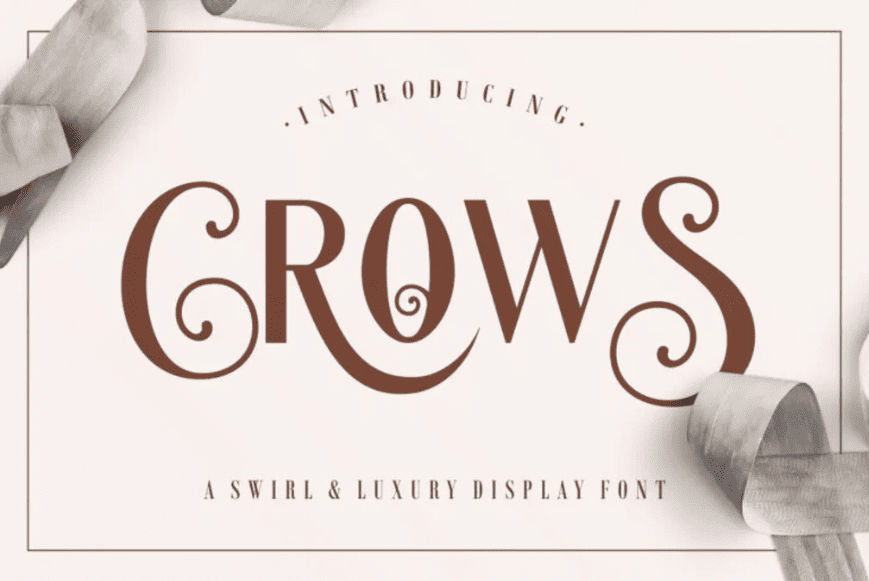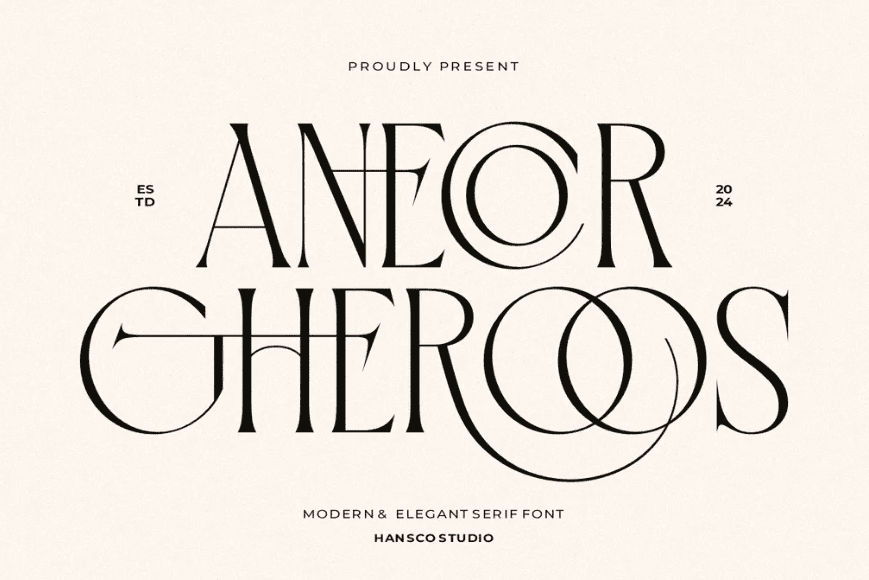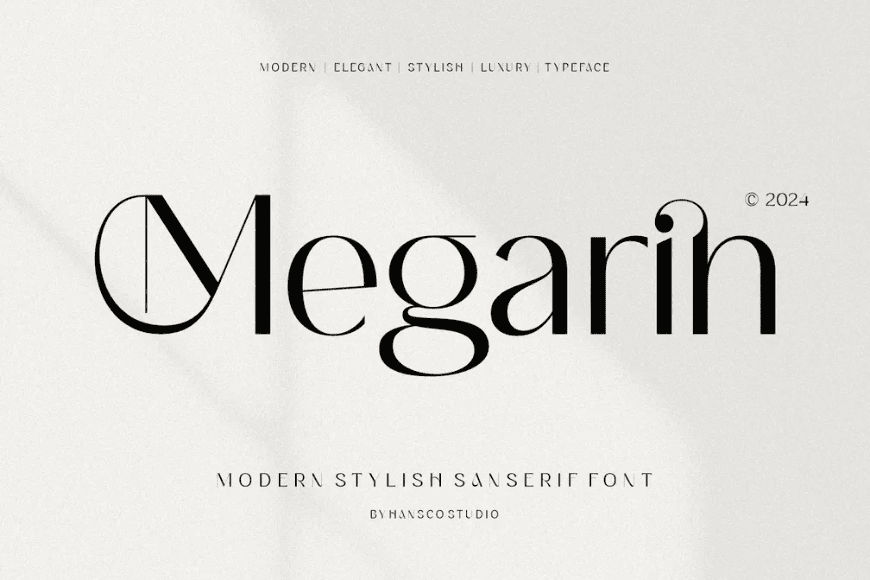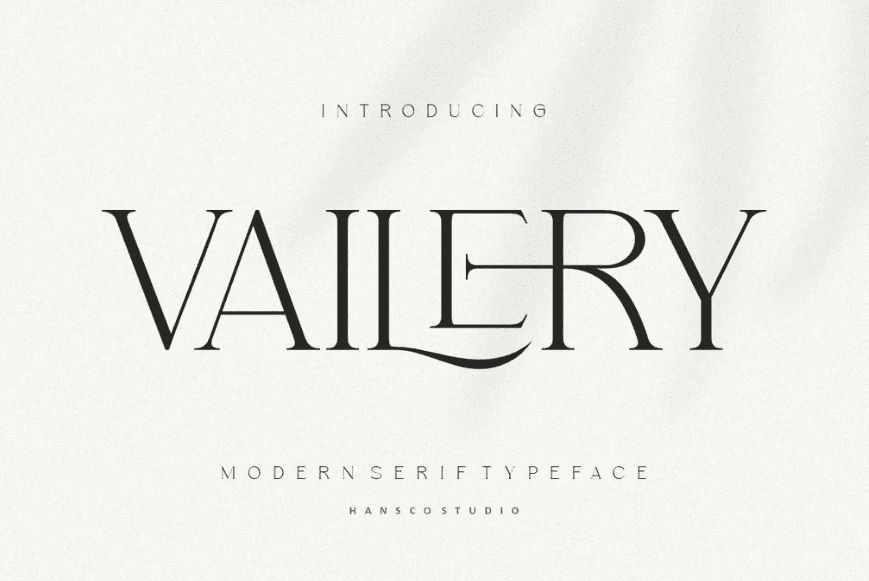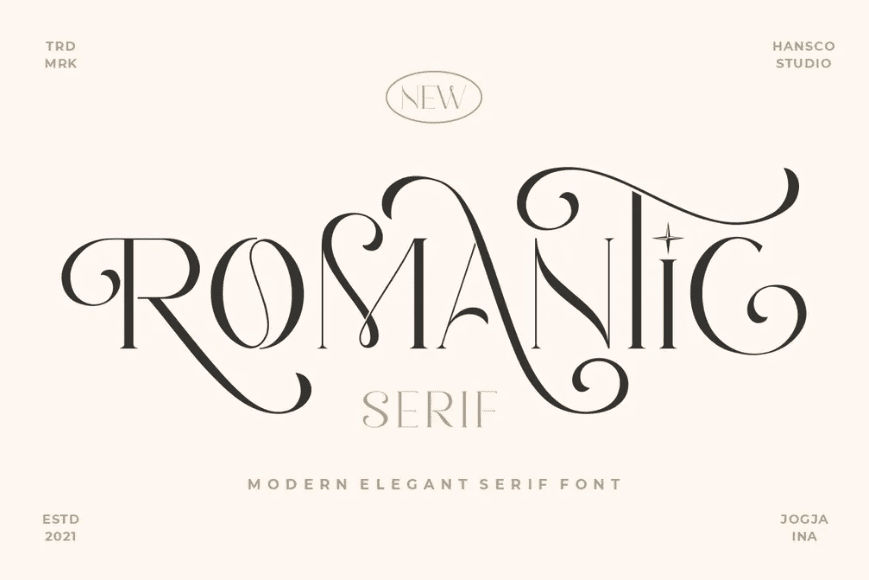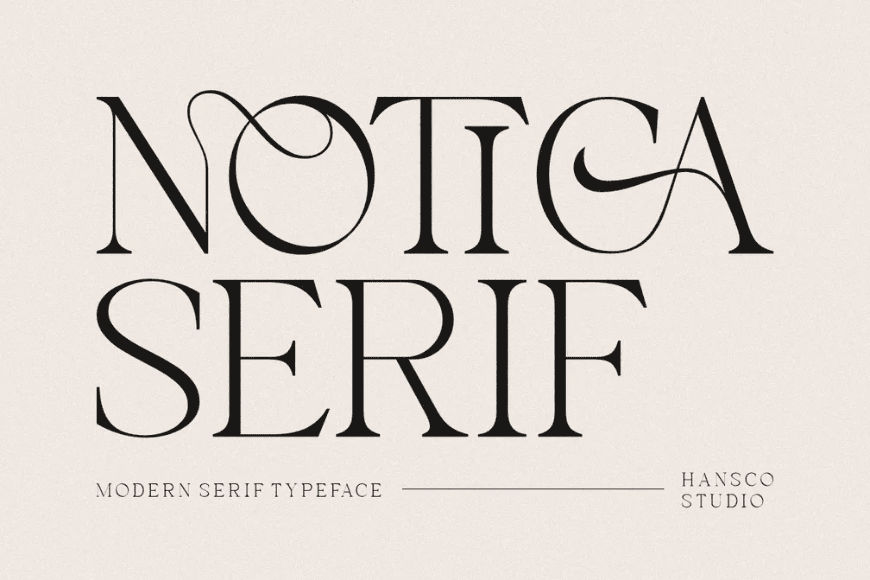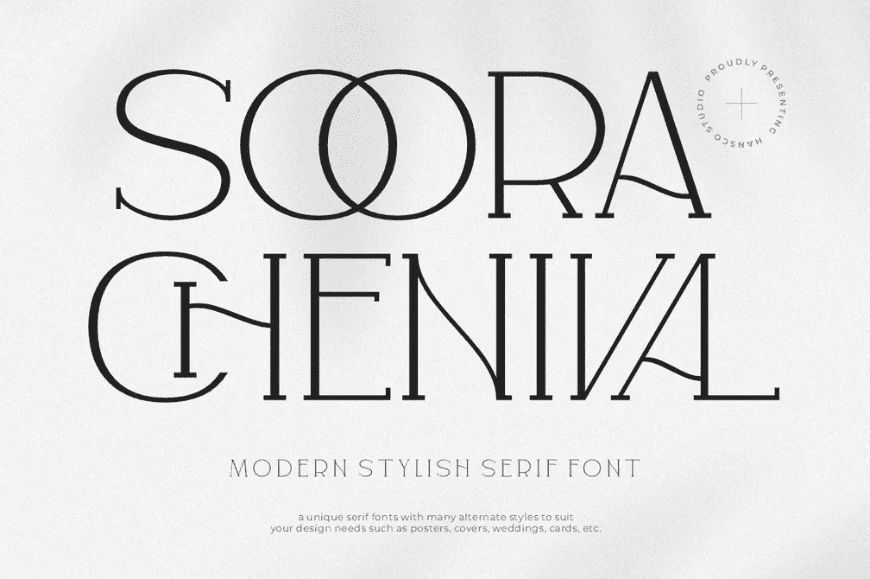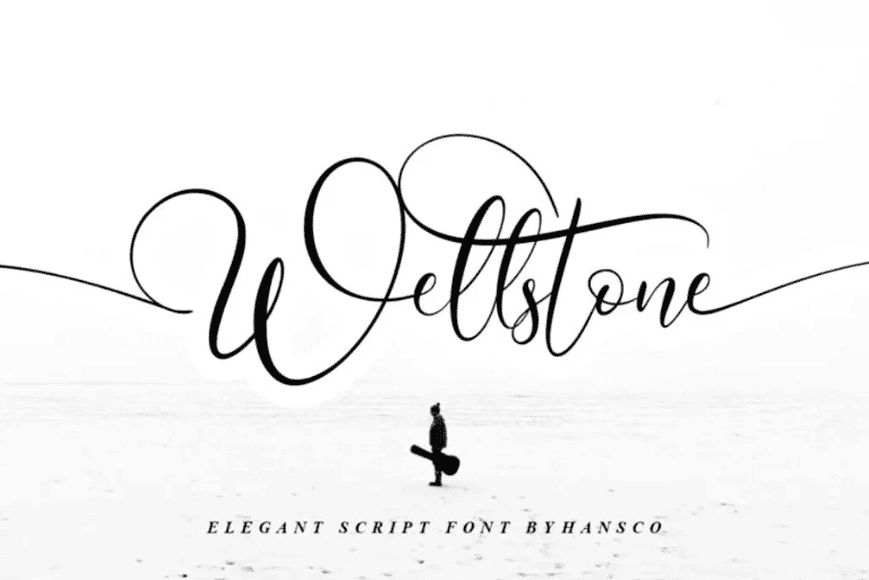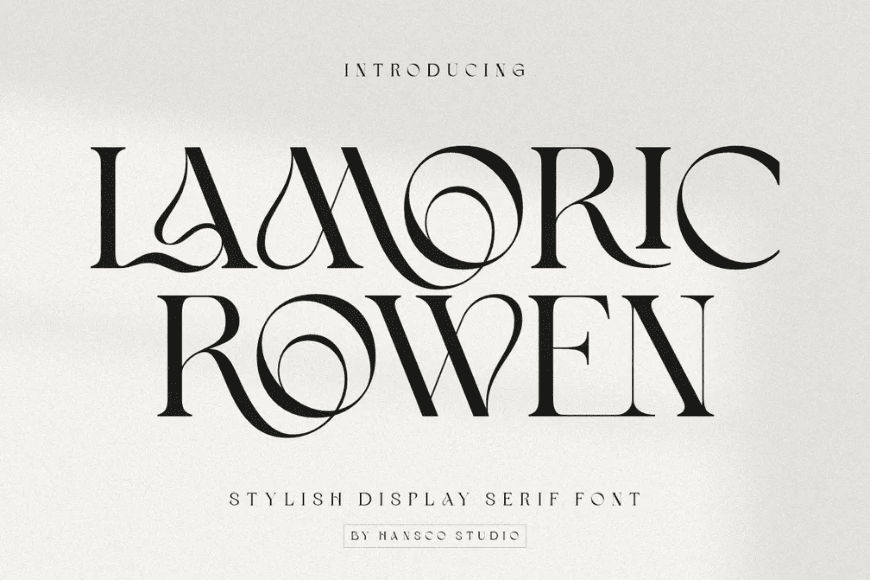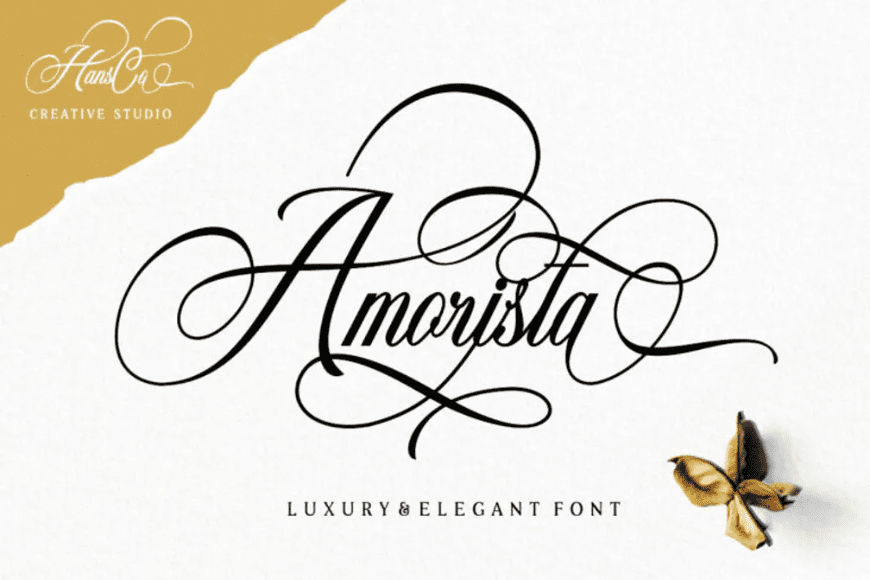
Welcome to a world where every stroke tells a story of prestige and elegance. Choosing the right luxury fonts is the essential first step in crafting a visual identity that resonates with sophistication.
Key Takeaways:
• Luxury fonts convey elegance and exclusivity through refined details, making them ideal for premium branding.
• They often use high contrast strokes or delicate details to create a sense of sophistication and refinement.
• They align well with industries like fashion, beauty, hospitality, and high-end services where perception matters most.
Discovering the World of Luxury Fonts
Explore our curated selection of twenty-one exquisite, imaginary typefaces. This guide highlights how unique letterforms can transform your brand’s persona, offering the perfect blend of artistry, capability, and timeless high-end appeal.
1. Crows
Crows is a warm, curly font made to elevate your ethnic-inspired concept with mysterious vibes. This luxury display font is perfect for your logotype or hero section.
2. Riuka
Along with its experimental letterforms, Riuka holds an authoritative look with its bold serif foundation. Its unique modifications create a cute and elegant identity.
3. Lamoric Rowen
Lamoric Rowen is among our all-caps luxury fonts. This stylish typography showcases refined artistry and exceptional penmanship, turning each capital letter into a distinctive and memorable element of your branding.
4. Herkey
Herkey derives from a serif font style. With a carefully adjusted look and proportions, the typical, rigid style becomes something aesthetic. Its flowy accents and negative lines give a lasting impact.
5. Traditian
Contrary to its name, Traditian is far from your old-school expectations. This modern serif typeface brings a mysterious vibe and audacious swashes, often longer tails and flowy lines.
6. Amorista
If you’re searching for an intricate look, try Amorista. Its uppercase is highly stylistic, with wide loops and curves. While its small lowercases maintain legibility. Truly, an artistry within luxurious fonts.
7. Kastil Bridge
Kastil Bridge features chunky, juicy serifs with a polished finish. It is a powerful tool among fonts for luxury brands looking to make a bold, modern statement on social media platforms.
8. Gemola
Gemola focuses on legibility. This elegant serif font uses rounded letters with thinner lines, creating a clean and modern look. It feels curated and bespoke, suitable for luxury real estate and concierge services.
9. Paris Forbel
Paris Forbel is a charming luxury font with irregular proportions and daring accents. Although mostly simplistic, its starry additions and unexpected ligatures are enough to grab attention.
10. Stefania
Stefania is the embodiment of glamour and a classy font. Presenting refined letterforms, Stefania strikes elegance beyond typical luxury fonts, almost looking like a new type of alphabet.
11. Avegaer
Avegaer leans more towards a calligraphy typeface. It’s highly stylistic with a calming vibe and antique visuals. It is perfect for editorial headlines in high-fashion magazines and limited-edition book covers.
12. Beacon Aesthetic
Modern look, unique letterforms, and wild swashes. Beacon Aesthetic heavily stylized each letter with contrasting, rigid lines and curves. A serif font has never looked this lavish.
13. Anecor Gheroos
Anecor Gheroos is an expressive, luxurious font. This typeface excels in its ligature and alternate options, allowing you to completely modify the look specific to your brand.
14. Megarin
Megarin combines curve and angular lines proportionately, resulting in highly legible and fresh visuals. This font is perfect for those who appreciate simplicity with a hint of necessary flair.
15. Vailery
Among our luxury brand fonts, Vailery is vibrant and noticeable with its wide and striking letterforms. Its thin strokes prevent it from being loud, as this font is pretty big in proportion.
16. Romantic
Even at a glance, you know that Romantic is an eye-catching font. Its floral flairs, all-caps letters, and magical vibe easily add a unique aesthetic to your luxury brands.
17. Notica Serif
Although a serif font, Notica Serif is elegantly flowy. The combination of flairs, cuts, and its individual letters creates a balance between artistry and functionality, allowing for a versatility in luxury concepts.